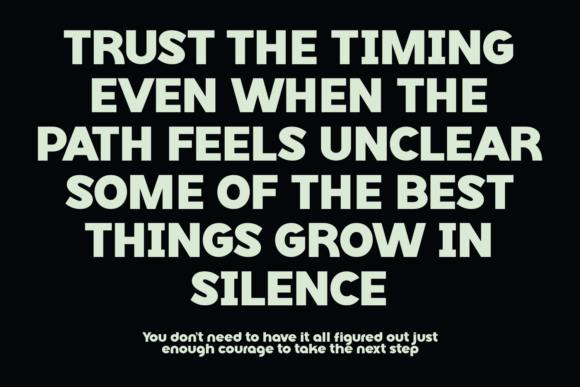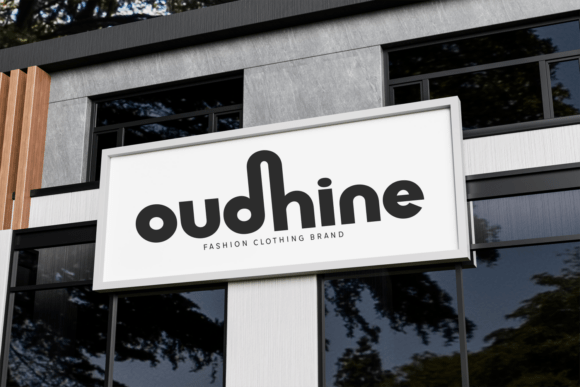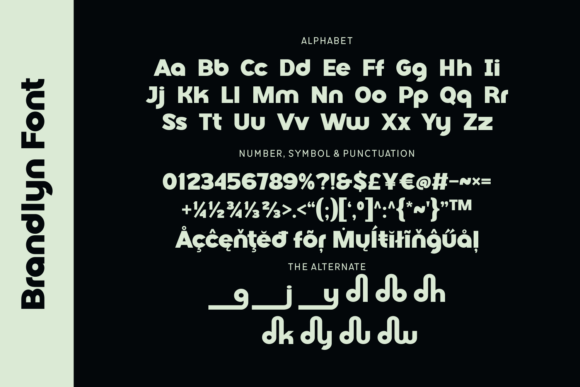
Introducing Brandlyn Font: The Ultimate Sans Serif Display Font for Modern Design
In the world of typography, a font can make or break a design. With the rise of modern technology and innovative branding, designers are constantly on the lookout for typefaces that can help their creations stand out from the crowd. This is where Brandlyn Font comes in – a cutting-edge sans serif display font designed with striking curves and a contemporary personality.
What Makes Brandlyn Font Unique?
Brandlyn Font boasts unique terminal shapes and rounded forms that set it apart from other sans serif fonts. Its clean and sharp lines make it perfect for tech-inspired branding, modern packaging, web headlines, and logo design. With Brandlyn, you can instantly give your layout a trend-forward and professional look.
Key Features of Brandlyn Font
- Striking Curves: Brandlyn Font features smooth, flowing curves that add a touch of elegance to any design.
- Unique Terminal Shapes: The font’s terminal shapes are designed to be distinctive and memorable, making it perfect for logos and branding.
- Rounded Forms: The rounded forms of Brandlyn Font give it a friendly and approachable feel, making it ideal for modern packaging and web headlines.
- Clean and Sharp Lines: The font’s clean and sharp lines ensure that it remains legible and professional, even at large sizes.
Use Cases for Brandlyn Font
Brandlyn Font is incredibly versatile and can be used in a variety of design applications, including:
- Tech-Inspired Branding: Brandlyn Font is perfect for tech companies looking to create a modern and innovative brand image.
- Modern Packaging: The font’s clean and sharp lines make it ideal for product packaging that requires a professional and trend-forward look.
- Web Headlines: Brandlyn Font is designed to grab attention, making it perfect for web headlines and titles.
- Logo Design: The font’s unique terminal shapes and rounded forms make it an excellent choice for logo design and branding.
Why Choose Brandlyn Font?
With so many fonts available, why choose Brandlyn Font? Here are just a few reasons:
- Trend-Forward Design: Brandlyn Font is designed to be on-trend and modern, ensuring that your design looks fresh and contemporary.
- Professional Look: The font’s clean and sharp lines give it a professional look that’s perfect for businesses and brands.
- Versatility: Brandlyn Font can be used in a variety of design applications, making it a great addition to any designer’s toolkit.
In conclusion, Brandlyn Font is a cutting-edge sans serif display font that’s perfect for designers and crafters looking to create modern and innovative designs. With its striking curves, unique terminal shapes, and rounded forms, Brandlyn Font is sure to make any layout look instantly trend-forward and professional. Whether you’re working on tech-inspired branding, modern packaging, web headlines, or logo design, Brandlyn Font is an excellent choice.
Get Ready to Elevate Your Design with Brandlyn Font